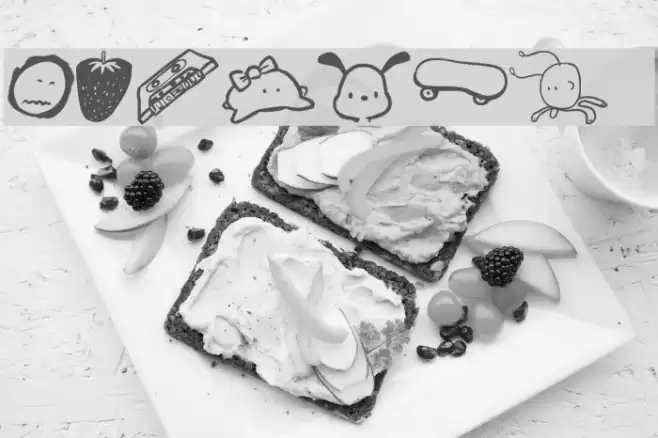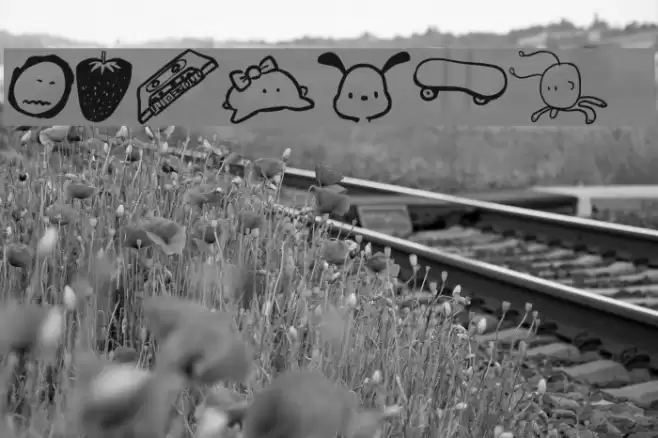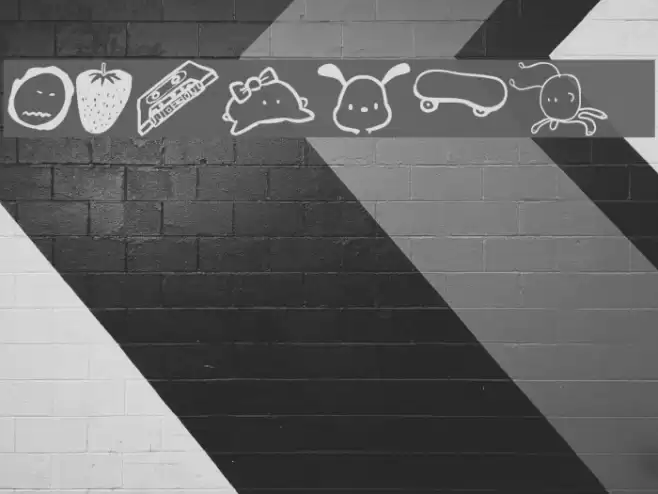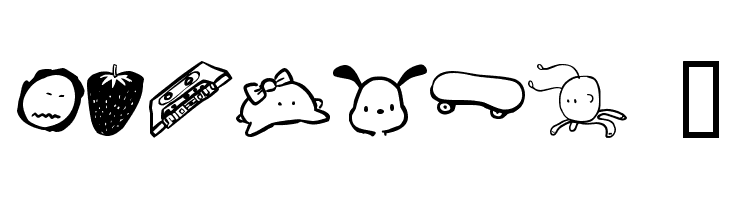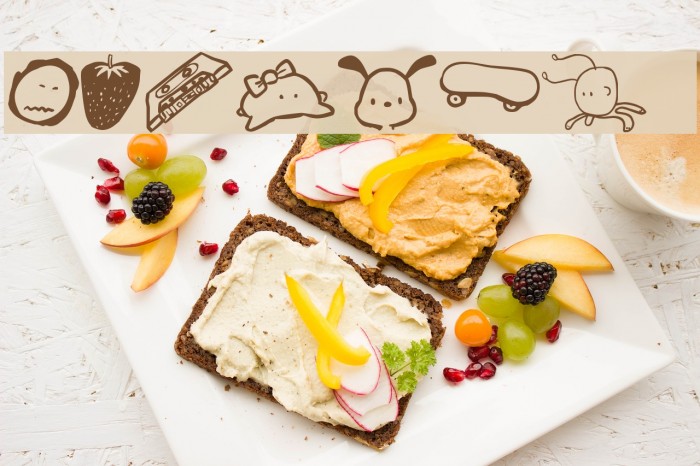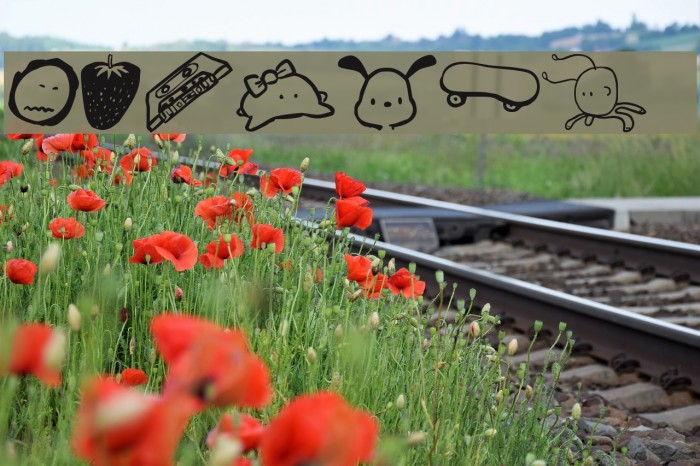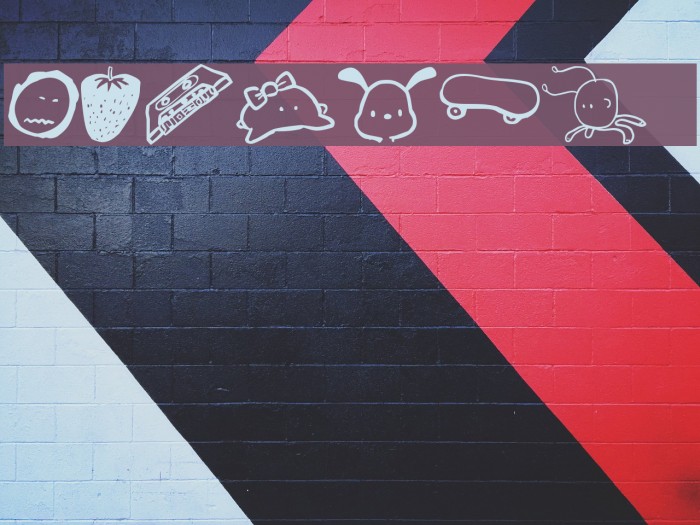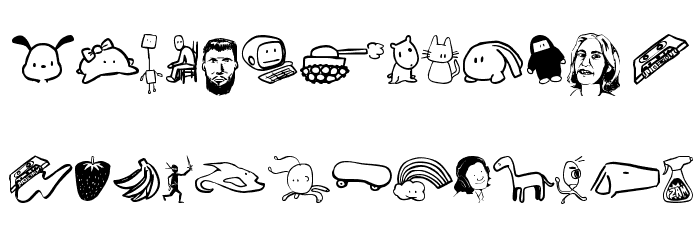
Tombats 7 Font
Tombats 7 Description
This collection features a whimsical and playful assortment of hand-drawn doodles and illustrations, each character offering a unique and quirky design. The images range from animals and objects to abstract shapes and faces, providing a diverse array of visual elements. The style is informal and cartoonish, with a focus on humor and creativity. The characters are bold and easily recognizable, making them suitable for a variety of creative projects. The overall aesthetic is fun and lighthearted, perfect for adding a touch of personality to any design.
A playful set of hand-drawn doodles and illustrations with a quirky, cartoonish style from Images & Symbols fonts.
- Proposed Projects: Ideal for children's books, playful branding, greeting cards, and creative social media graphics.
- Use Case: Logos, Illustrations, Decorative elements